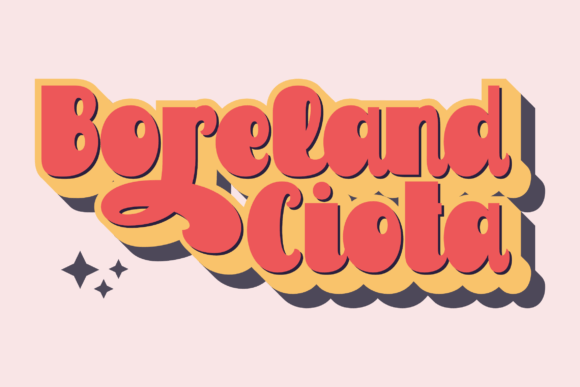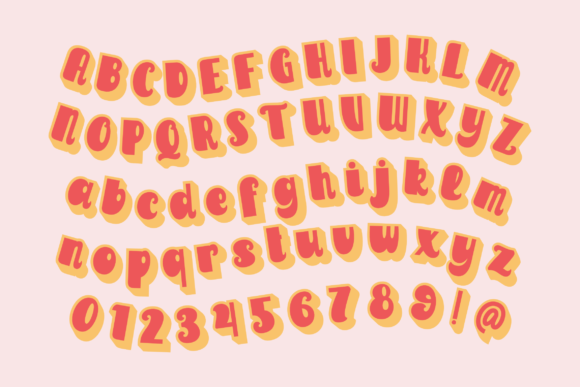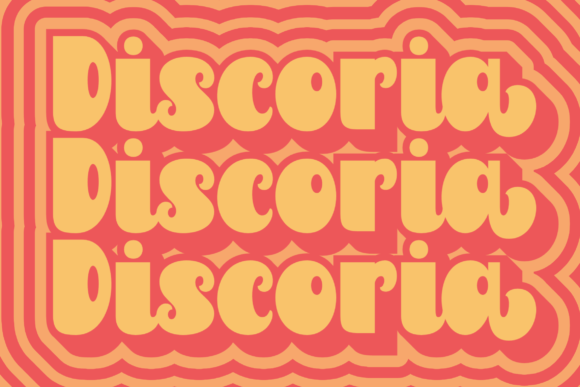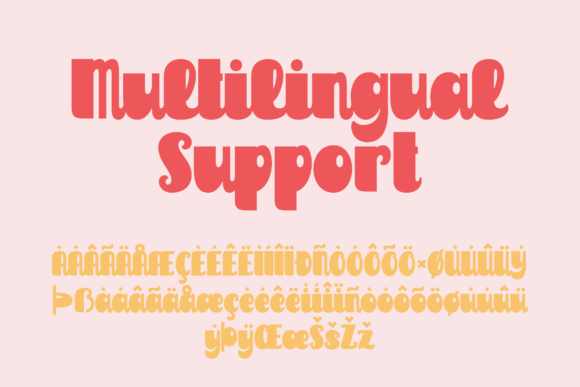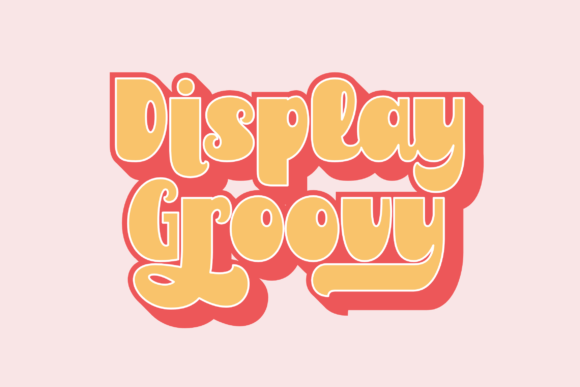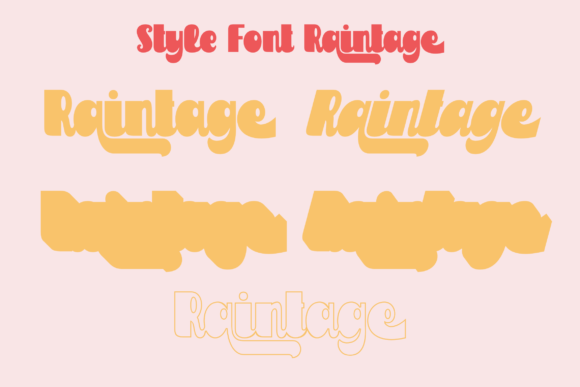
Introduction to Raintage Font
Raintage feels playfully nostalgic and delivers an incredible vintage retro aesthetic.
Use this display font to add that special retro touch to any design idea you can think of Masterfully designed to become a true favorite, this font has the potential to bring each of your creative ideas to the highest level.